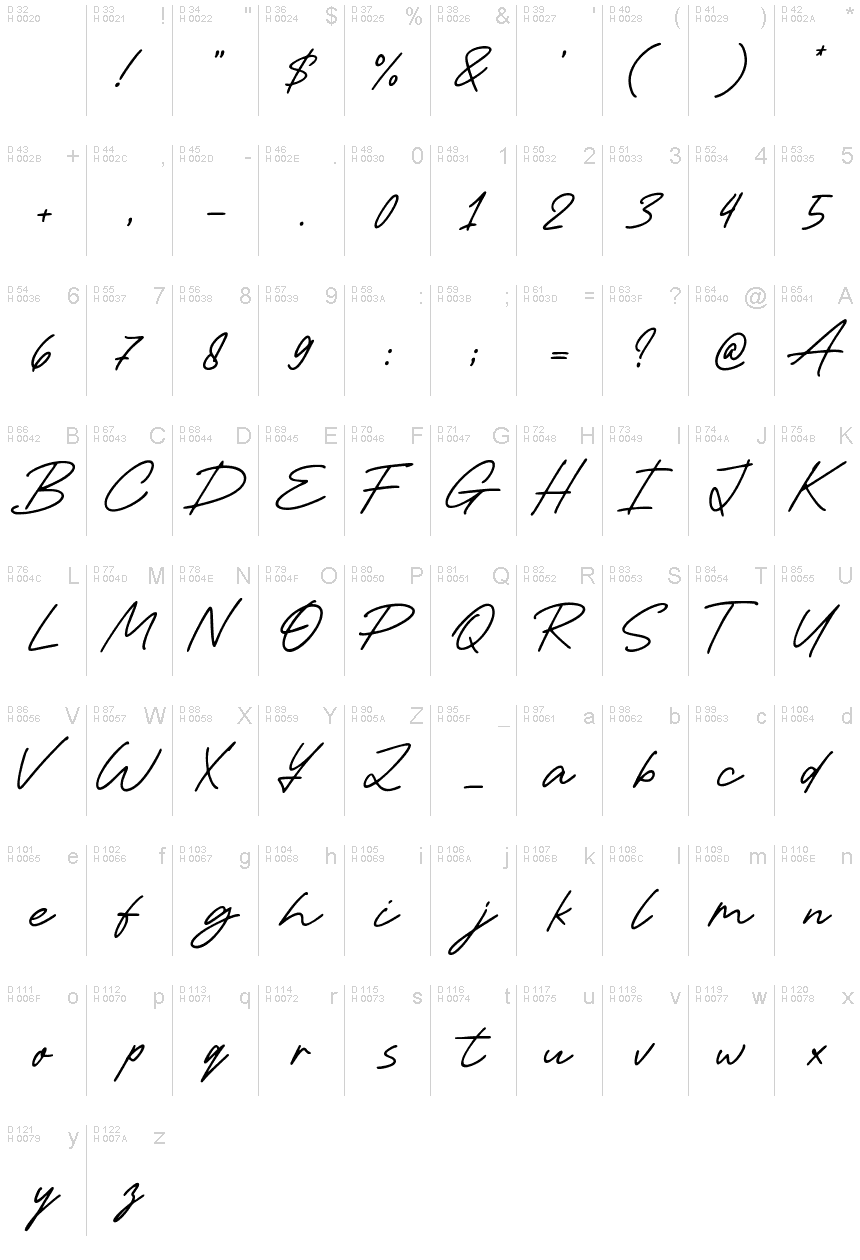
Best Wishes
Best Wishes is a delightful handwritten font designed by Khurasan. With its light weight and charming style, this font adds a touch of elegance to any project. Its fluid strokes and natural appeal make it perfect for wedding invitations, greeting cards, and personal branding. Whether you're creating whimsical logos or crafting heartfelt messages, Best Wishes brings a sense of warmth and sincerity to your designs. Let your creativity flow with this versatile typeface that spreads joy and best wishes in every letter.